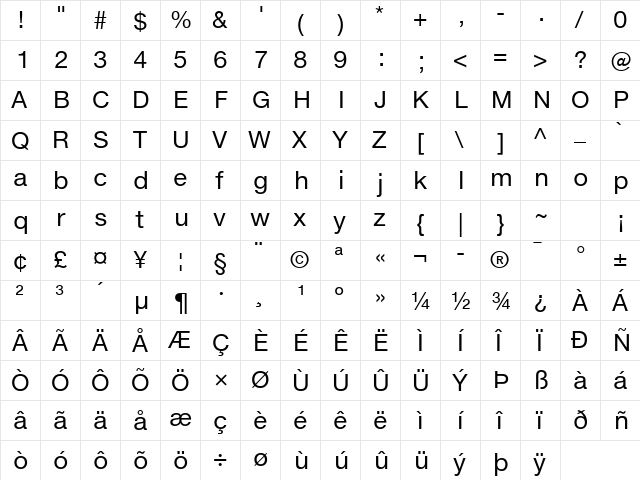
Helvetica Neue eText Pro Roman
| Foundry | Linotype GmbH |
| Designer | Linotype Design Studio |
Design Context for Helvetica Neue eText Pro Typeface
Helvetica Neue eText Pro takes a measured approach to typography — its balanced proportions and neutral character make it a reliable workhorse for both digital and print work.